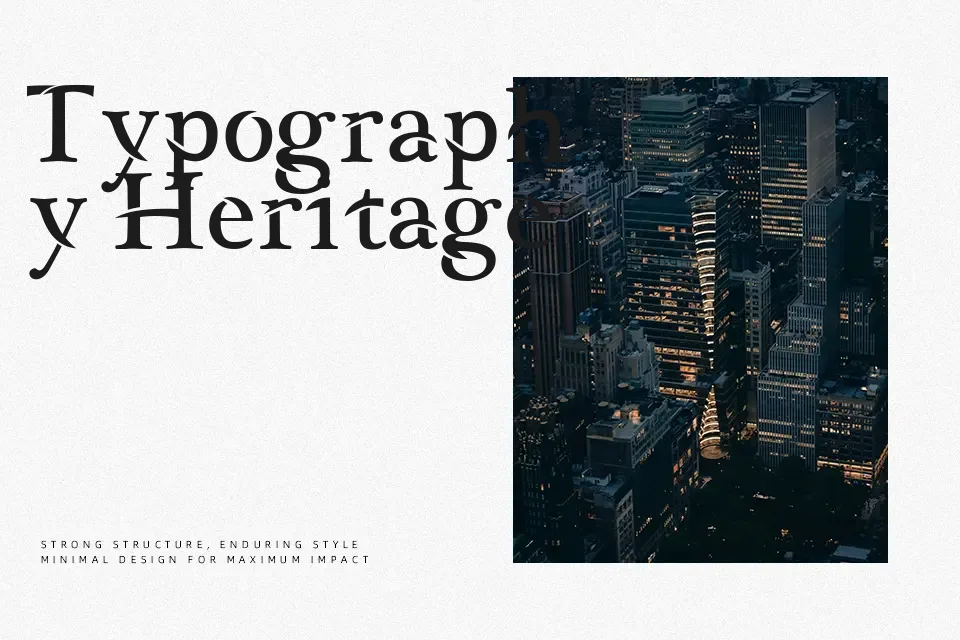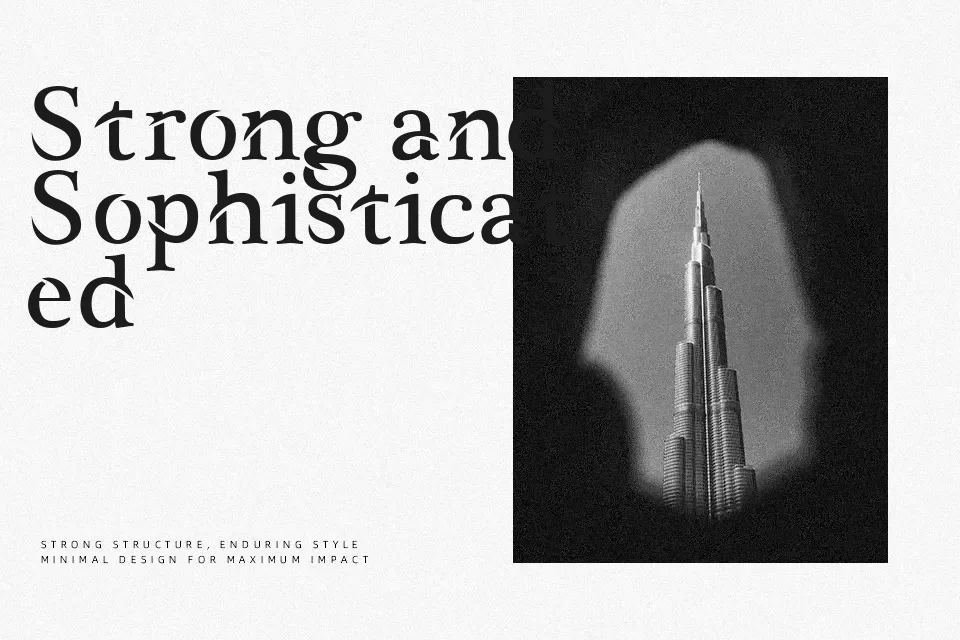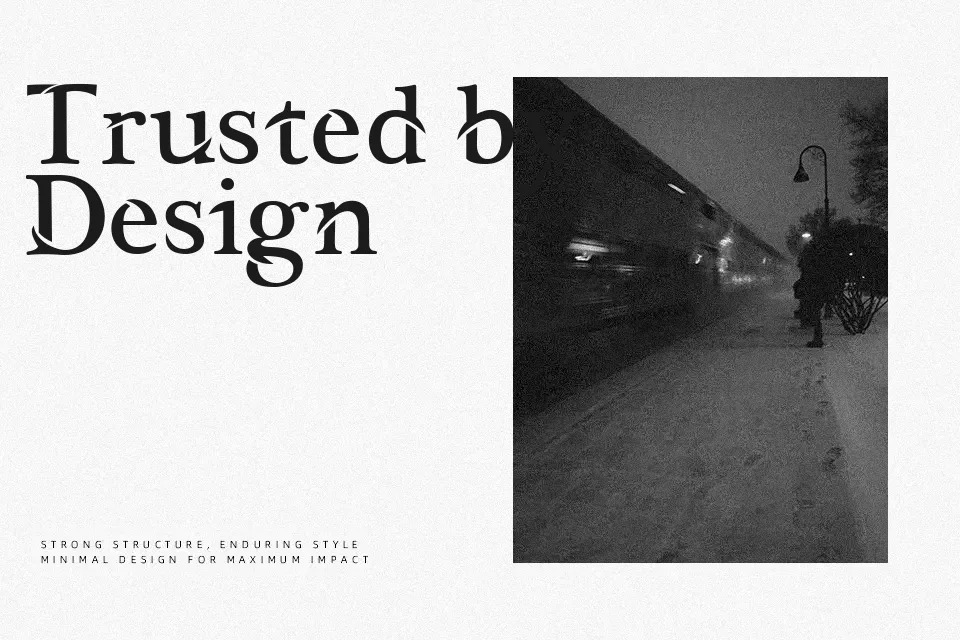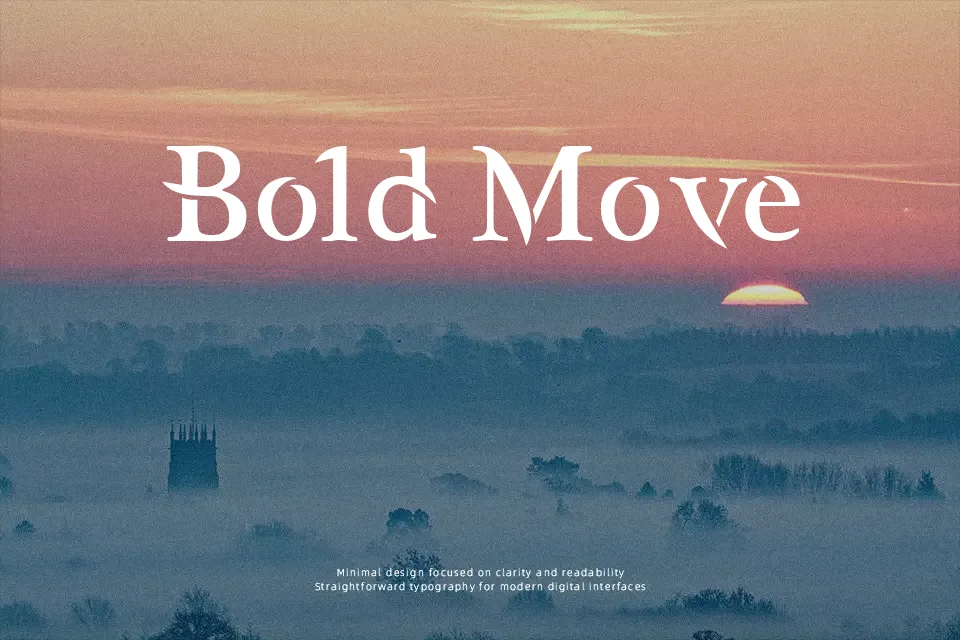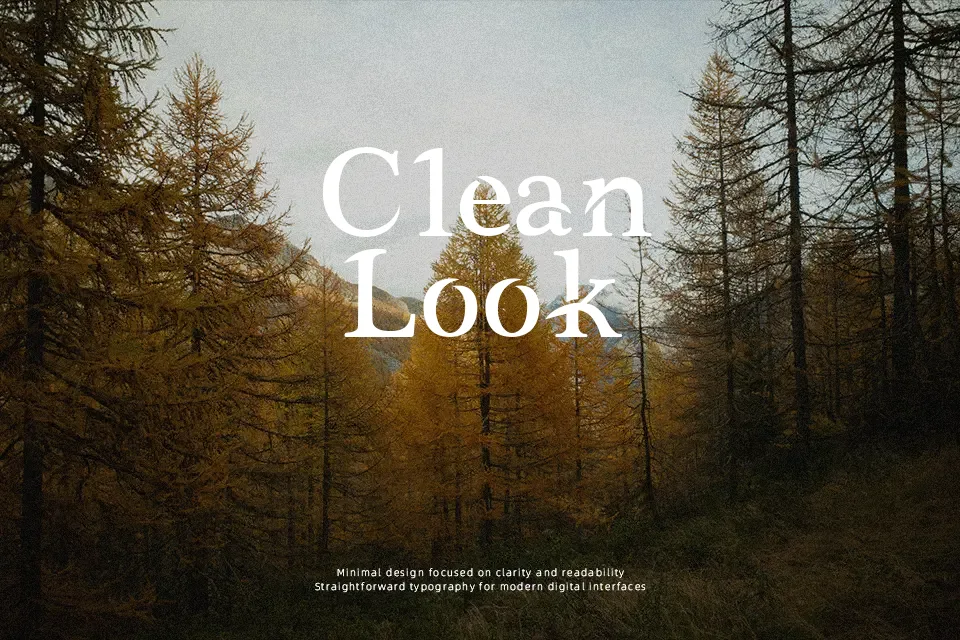
Akbaal Font
Built on the structural logic of the Mayan AKBAL night seal, Akbaal carries a distinct ethnic gravity that most display fonts simply don’t have. The letterforms sit in a semi-bold weight with freeform serif detailing — strokes that feel deliberately carved rather than drawn. There’s a controlled tension between its decorative nature and its readable structure that makes it genuinely usable at headline sizes. Cultural branding, mythology-themed packaging, or documentary title cards are where it earns its keep. That said, its stylistic specificity is also its ceiling — deploy it in neutral or corporate contexts and it reads as mismatched. Not suitable for body text or multilingual layouts requiring extended character support.
Best For:- Cultural brand identity and logo mark headers
– Book covers or editorial titles with a historical or mythological theme
– Music or film titles seeking pre-Columbian visual character
– Packaging for artisanal or ethnically inspired products
Not Ideal For:- Long-form body text or paragraph-level reading
– Corporate or tech branding requiring neutral visual tone
– Multilingual projects needing broad script support
– UI design where legibility at small sizes is critical
Perfect for branding, editorial, and logo, with a ancient and decorative style.